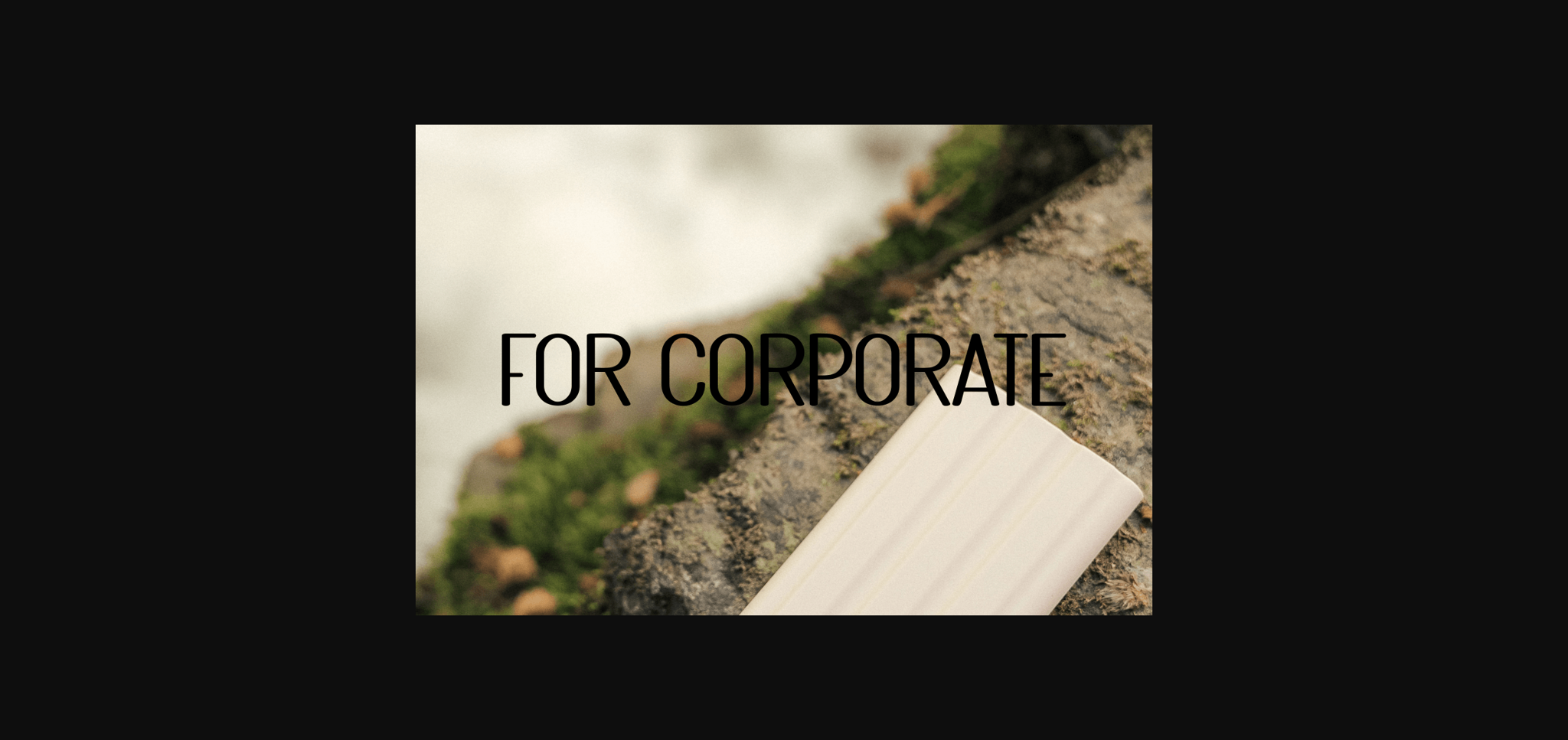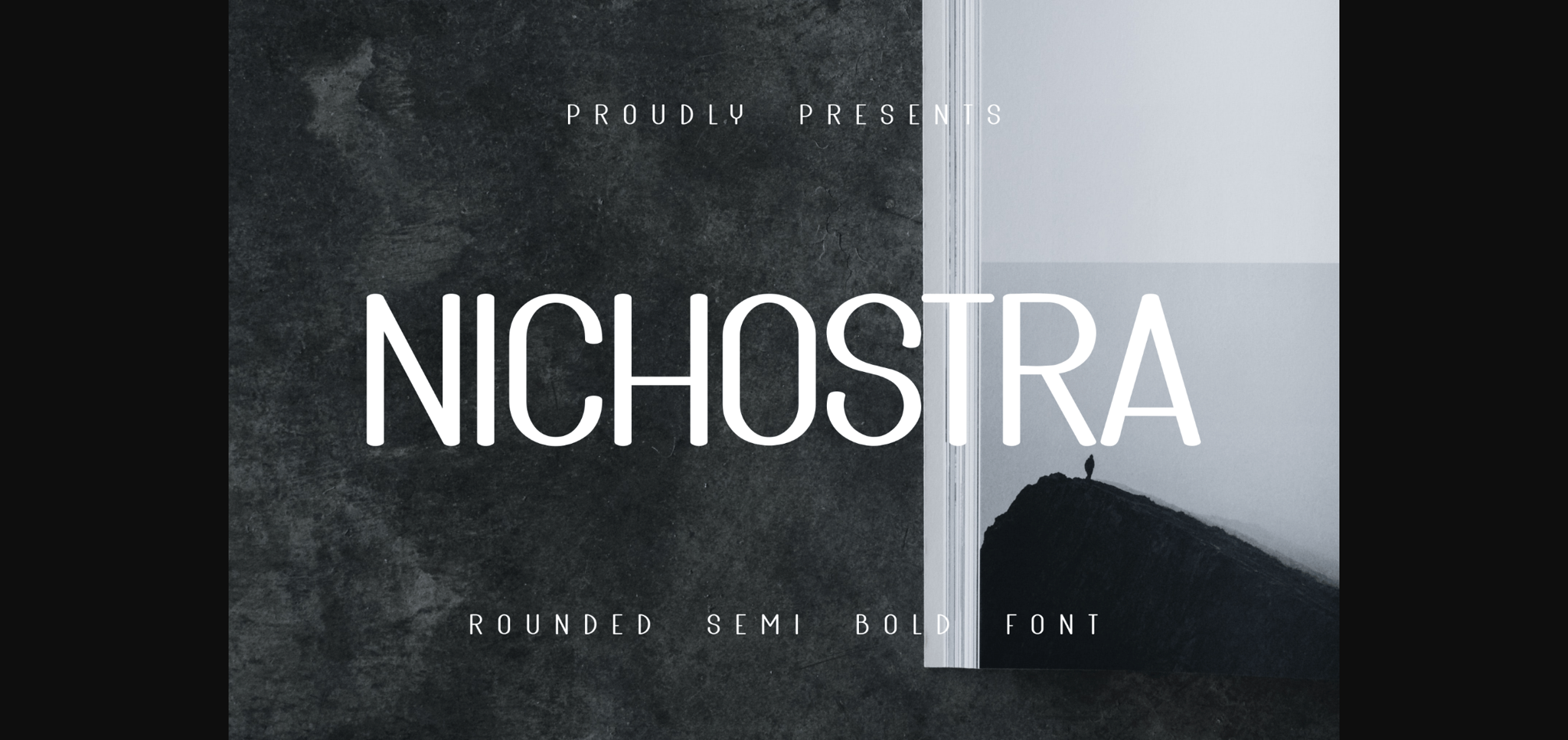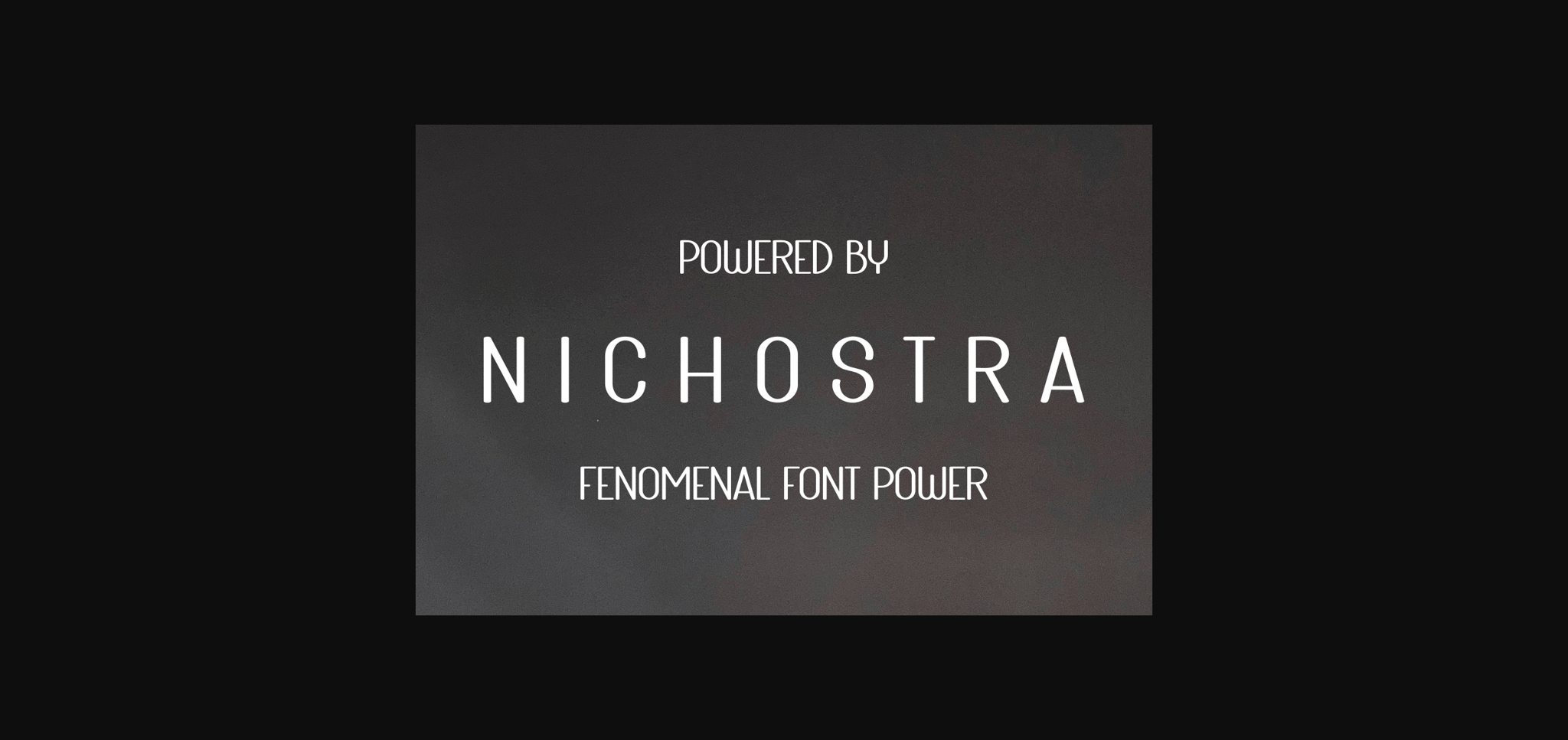
About Nichostra Font
Nichostra is a very classy sans-serif font with a smooth and firm appearance.
This font is great for brand names, company names, logos, or growing business awareness.